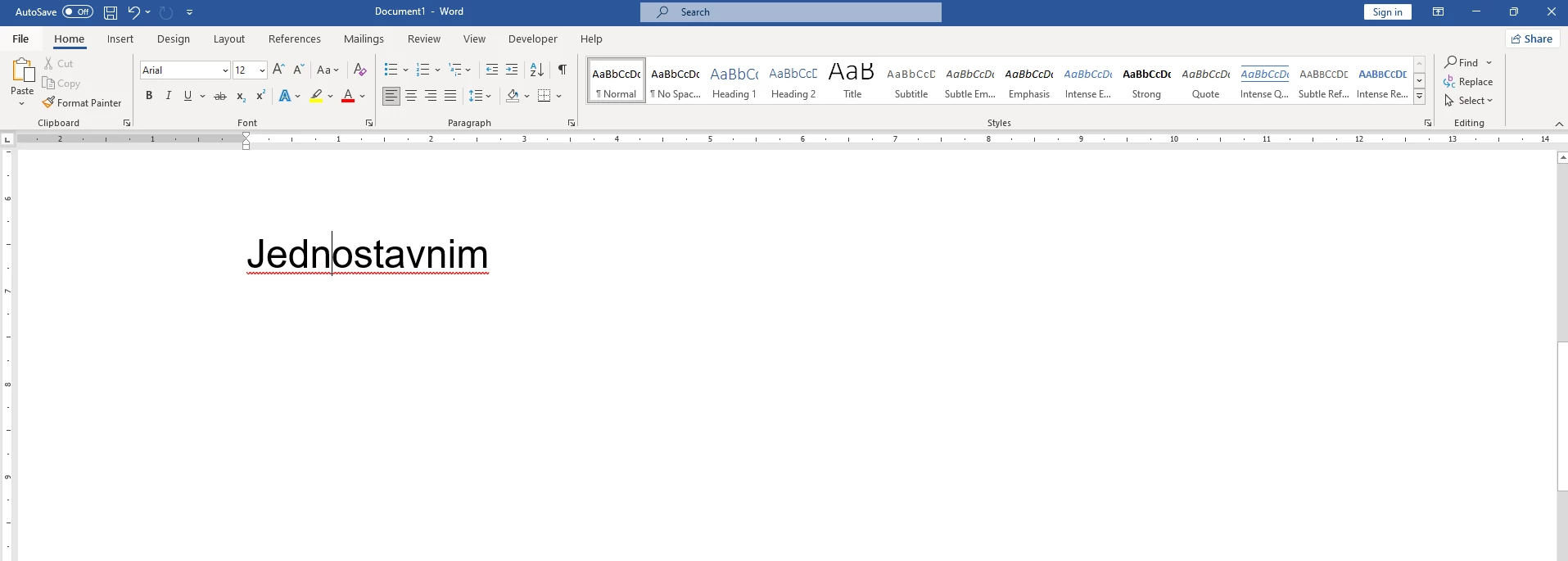
For testing  I use Arial  height 12 from Word, but Adobe fonts  after proceesing detect some different fonts:
Neue Haas Grotesk Text Pro 55 Roman, Nimbus Sans Regular and others.
Why is not Adobe fonts detect real simple font ?
I think the image search feature is only providing the nearest matches to fonts that are available to add via the Adobe Fonts web site.
The Arial type family is not available thru Adobe Fonts (partly since it's already a common system typeface for Windows and OSX). Typefaces such as Neue Haas Grotesk and Nimbus Sans are in the same typographical category as Arial, even though there are some pretty obvious visual differences between the typefaces.